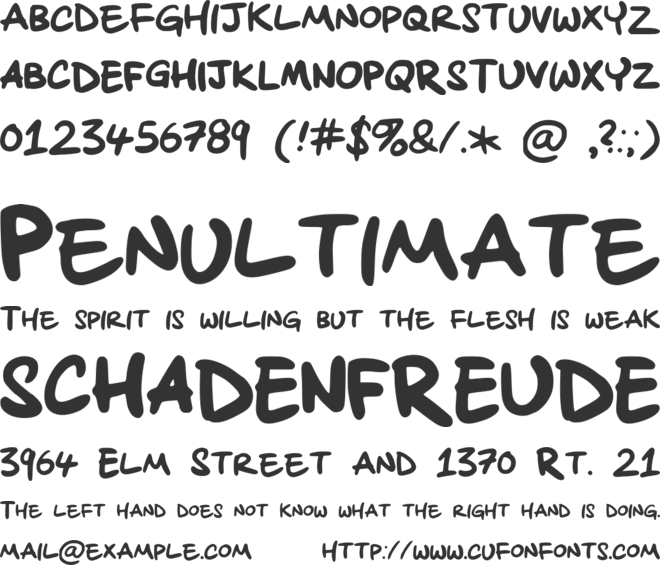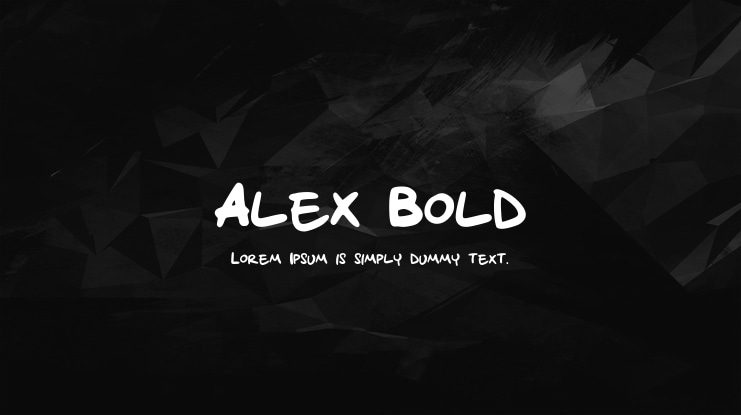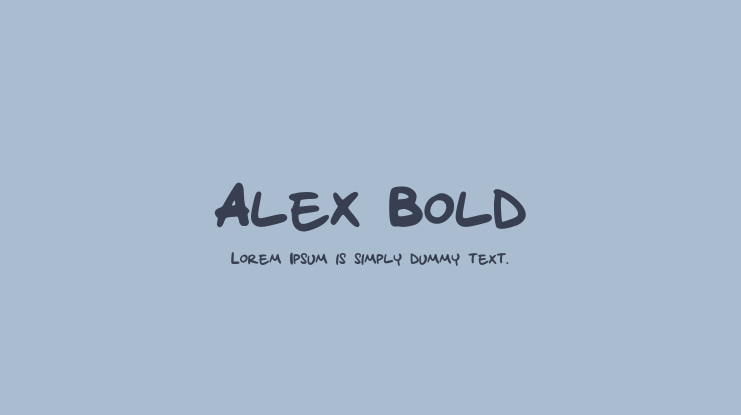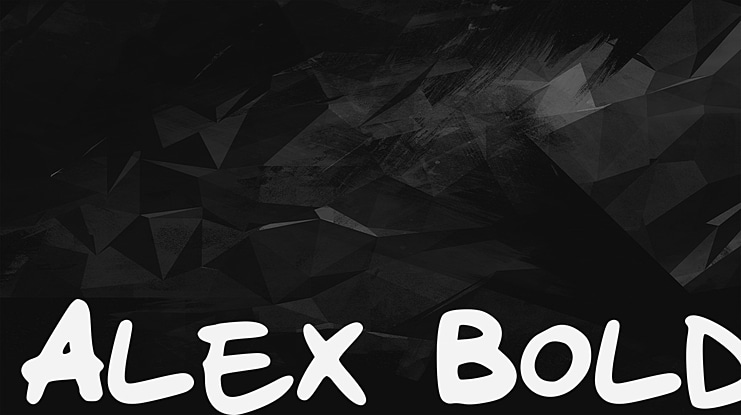
Alex_Bold Font
Hand drawn font used in Viz comic (UK), free for personal use. Upper Case gives bold, so best to use either all caps or all lower case.